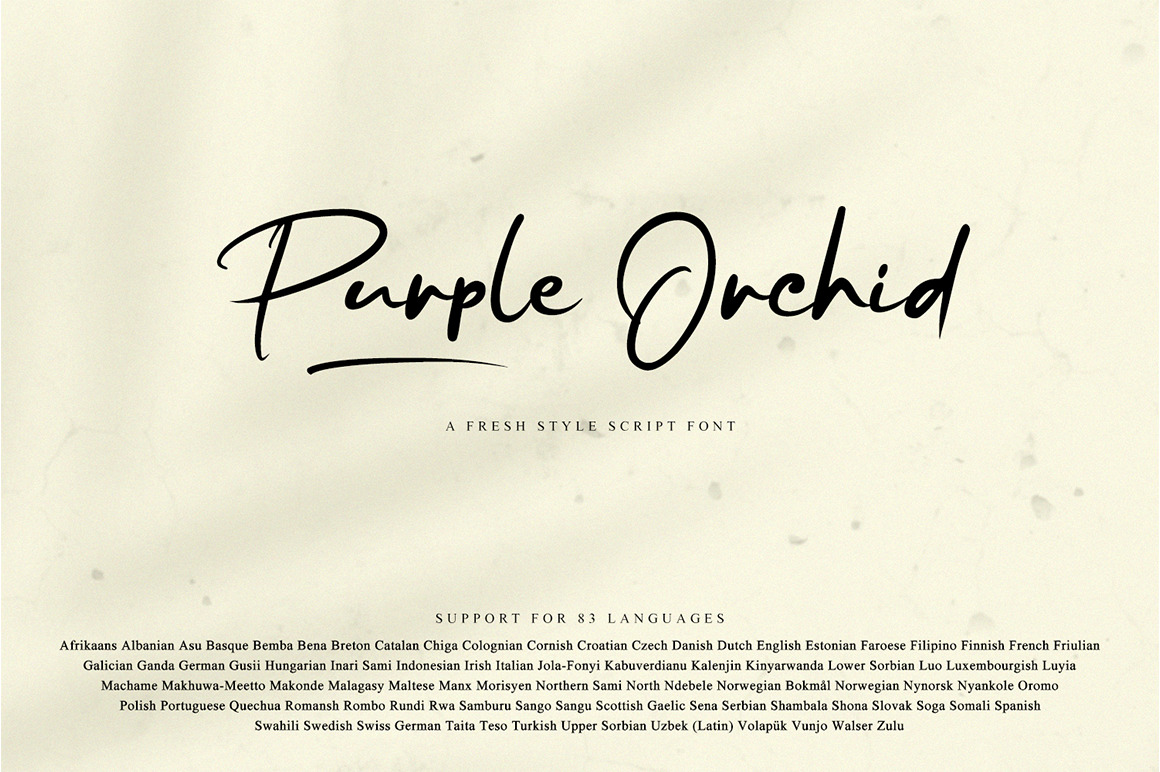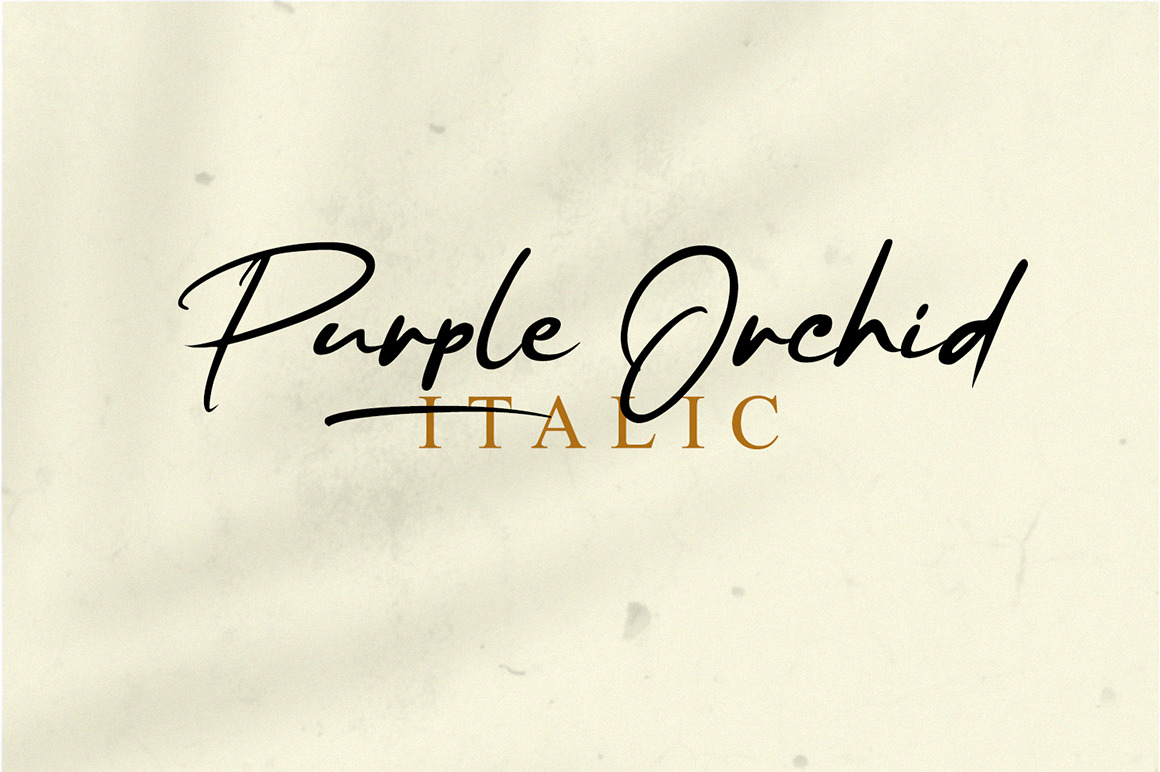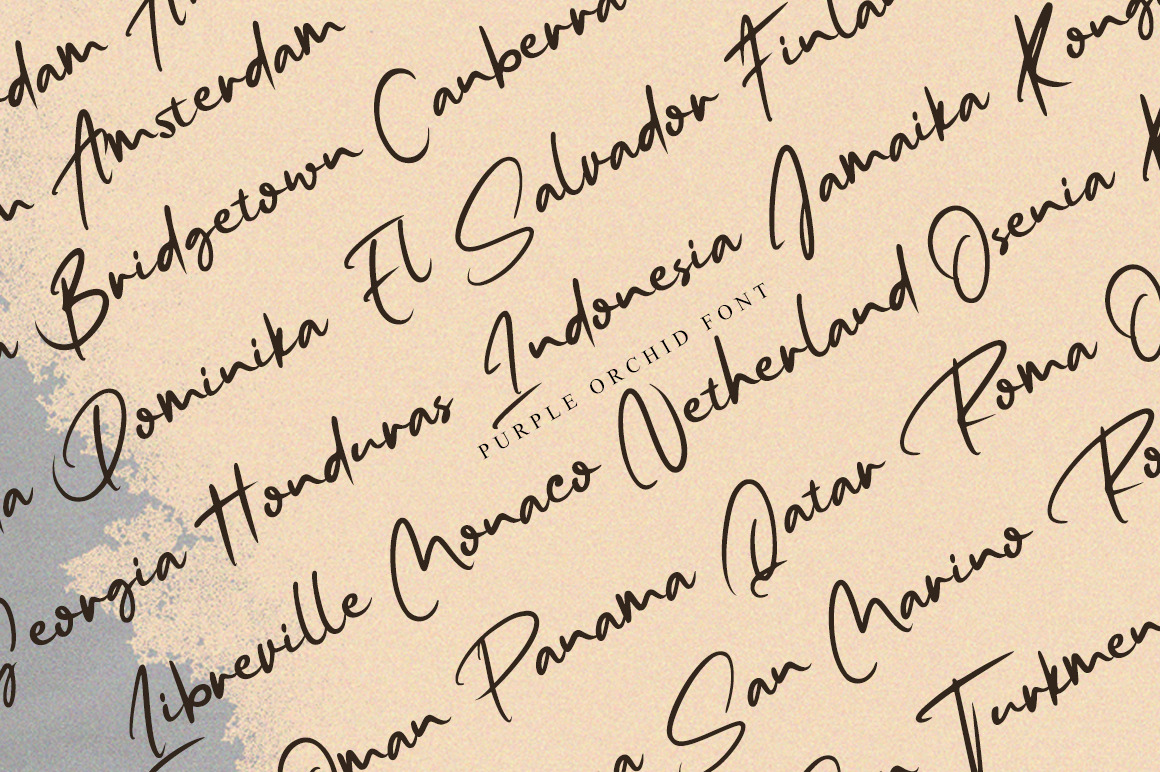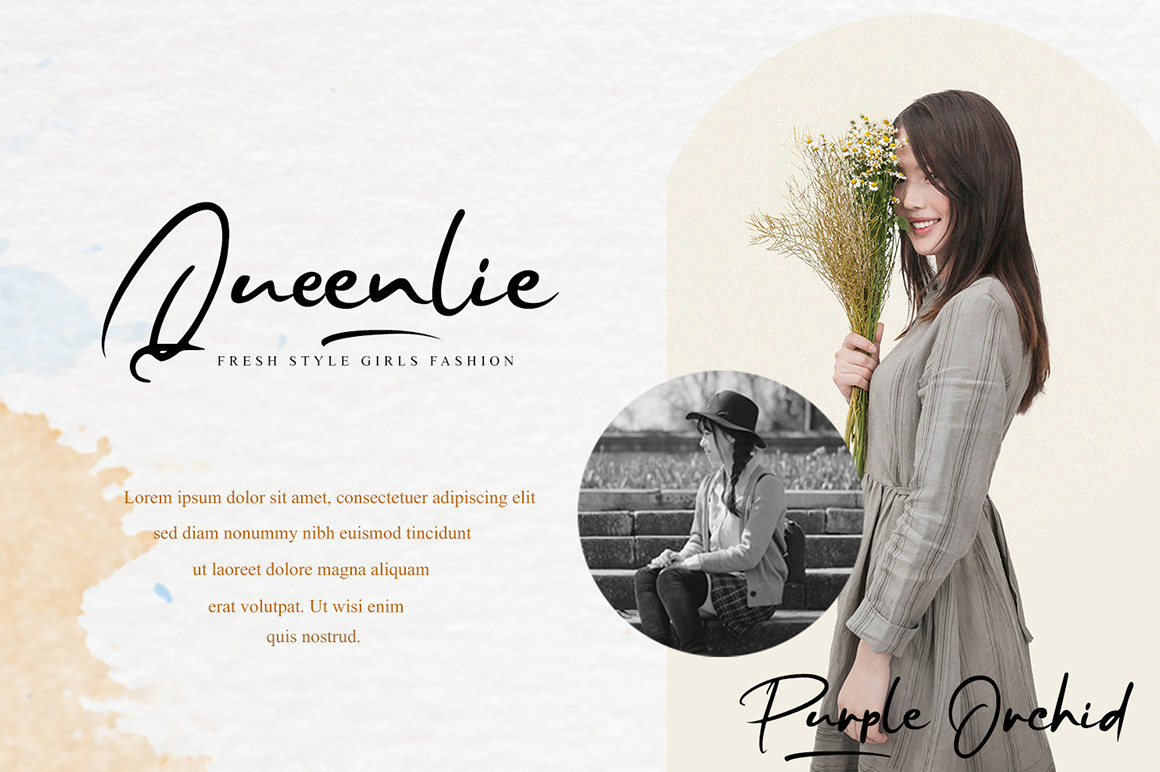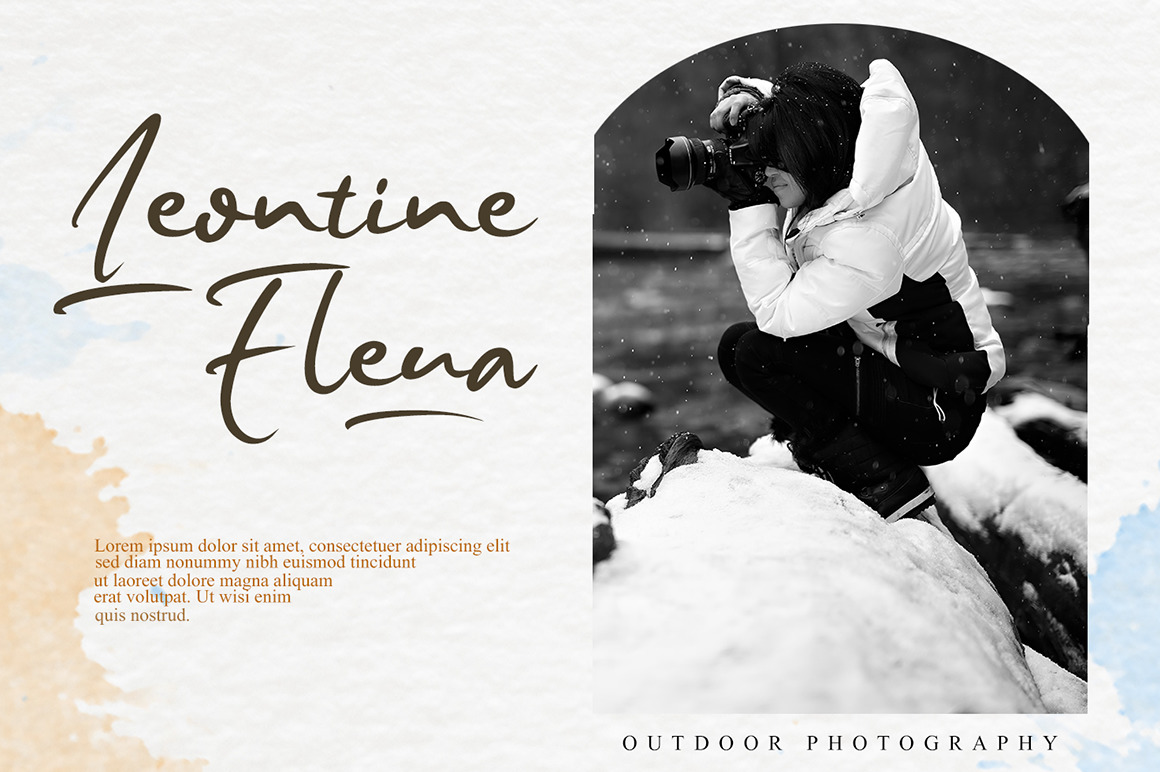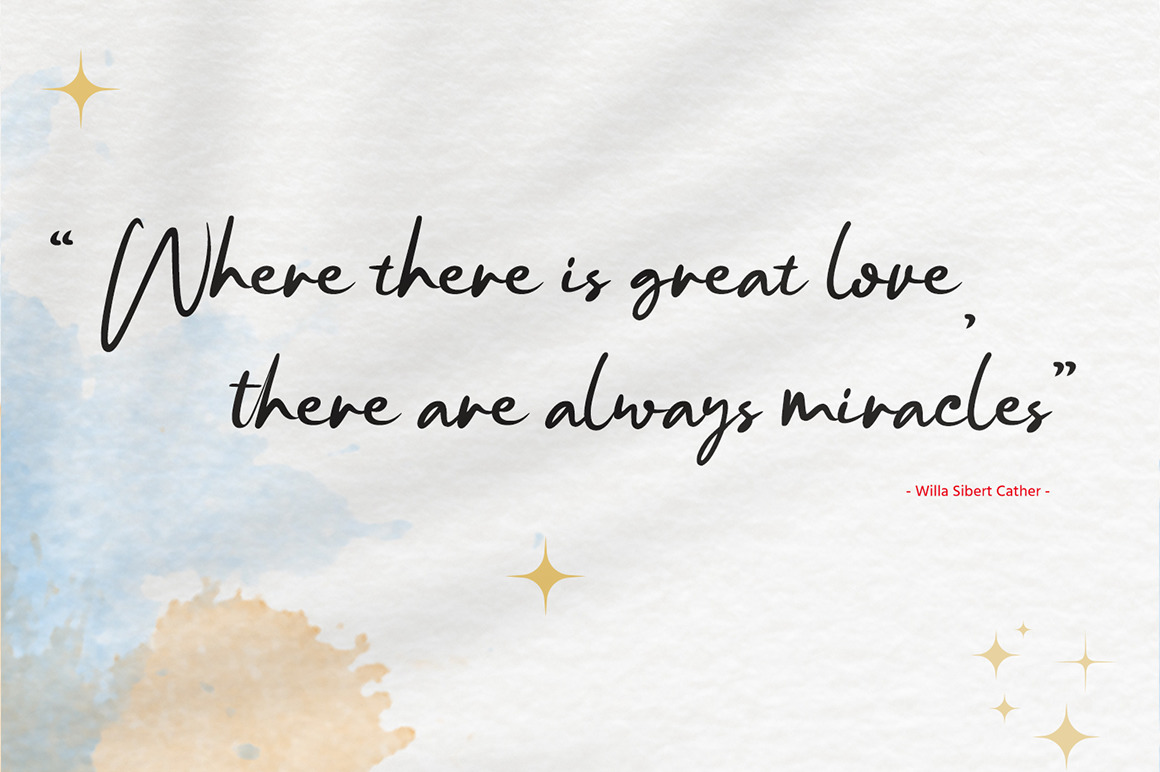
Purple Orchid Font
Purple Orchid is a beautiful handwritten font, expertly designed to be a true favorite with a modern style that's sure to look great.
- Unique Ligature Collection
- Special Underline Collection
- Multilingual support for 83 Country